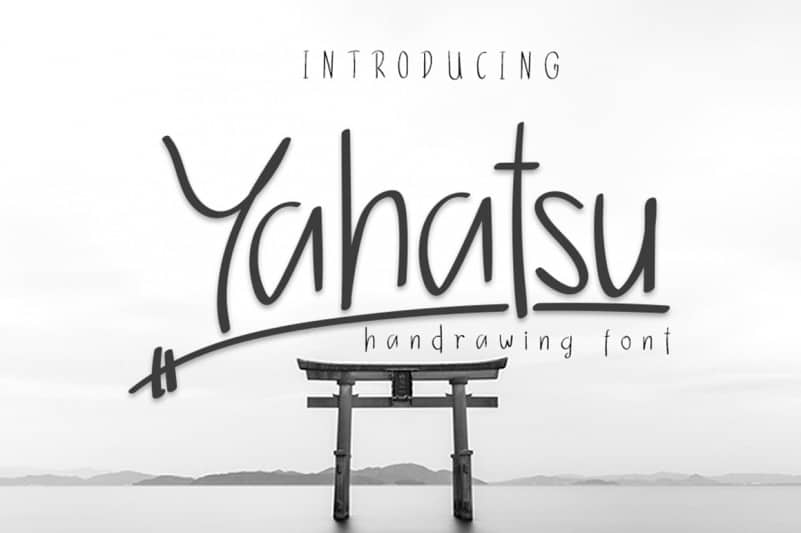
Yahatsu Handwritten Font
Yahatsu Handwritten Font simplifies elegance into one truly outstanding sans serif font. This font will look outstanding in any context, whether it’s being used on busy backgrounds or as a standalone headline!